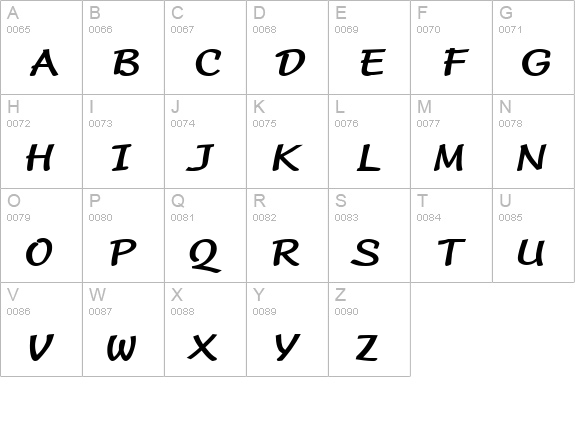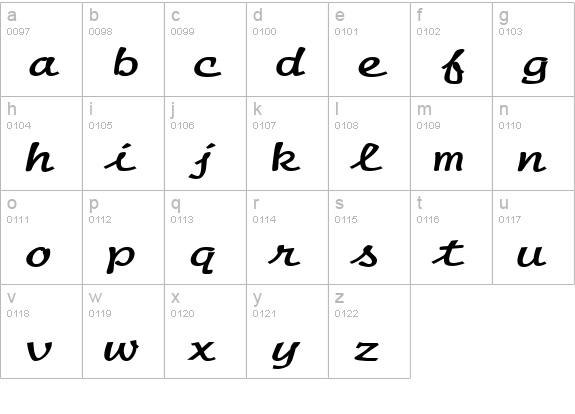
Manuscript Extended Bold is a strong, high-contrast, extended-width variant in the Manuscript typeface family \xE2\x80\x94 well suited to headlines, attention-grabbing titles, and strong calls-to-action.
Manuscript Extended Bold font is a stunning display typeface that exudes elegance and sophistication. With its bold and commanding presence, this font is perfect for making a statement and captivating your audience. The extended letterforms add a touch of uniqueness, making it stand out from other fonts. What makes Manuscript Extended Bold font even more appealing is that it is freely available to download at FontsMarket.com. This means that you can easily access and use this font for any personal or commercial project without any restrictions. Whether you're designing a logo, creating a poster, or crafting a website, Manuscript Extended Bold font will effortlessly elevate your design to new heights. The clean and crisp lines of this font ensure legibility, even at smaller sizes, making it versatile for a wide range of design applications. Its bold weight adds a sense of strength and confidence, making it ideal for headlines and titles. Additionally, the extended letterforms create a visual impact, making your text visually striking and memorable. Manuscript Extended Bold font is a true gem for designers and creatives looking to add a touch of sophistication and elegance to their projects. Its versatility, combined with its freely available download at FontsMarket.com, makes it a must-have for any design toolkit. So go ahead and explore the endless possibilities that Manuscript Extended Bold font offers, and let your creativity shine through.